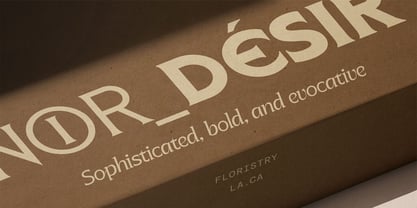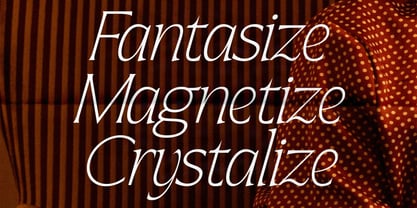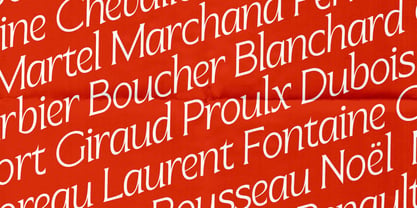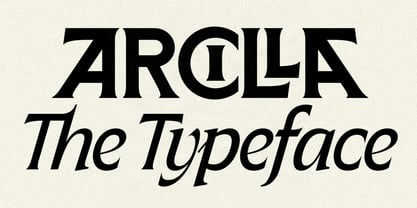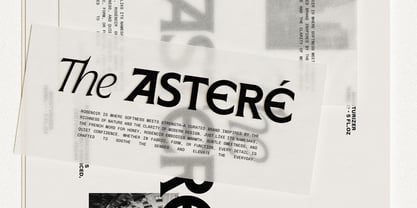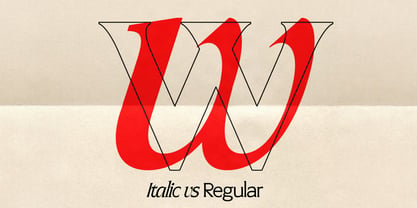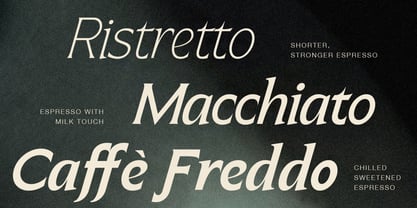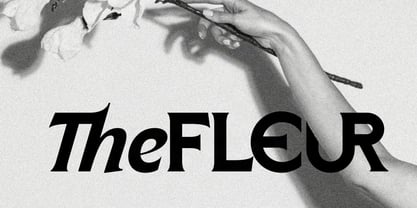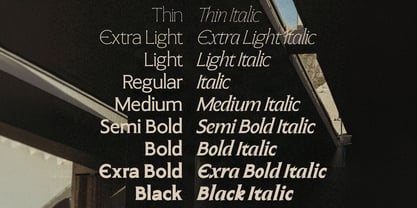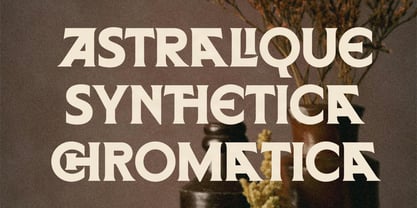
SLTF Arcilla
by SilverStag
The SLTF Arcilla Font Family was designed by SilverStag and published by SilverStag. SLTF Arcilla contains 18 styles and family package options. More about this family
SLTF Arcilla is a variable contemporary editorial serif with 9 weights from Thin to Black, 9 matching italics, and 18 fonts in total. Strong contrast between thick and thin strokes, architectural uppercase letterforms, and italic cuts that carry a genuine calligraphic quality — especially in the ligatures. Built for editorial design, luxury branding, fashion and lifestyle publishing, packaging, book covers, and advertising. Light enough to carry body text. Heavy enough to command a cover. 18 static fonts (9 upright + 9 italic) 40+ ligatures and stylistic alternates 100+ languages (Latin Extended) OpenType features The 2 variable fonts (upright + italic) are available exclusively at SilverStag Type Foundry. Compatible with Adobe Illustrator, Photoshop, InDesign, Figma, Affinity Designer, Affinity Publisher, Canva Pro, Sketch, ...
Designers: SilverStag
Foundry: SilverStag